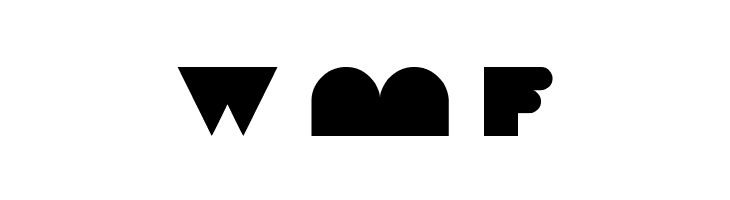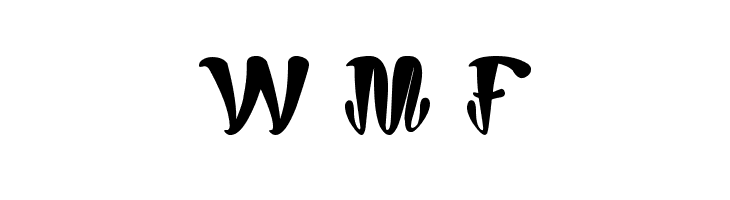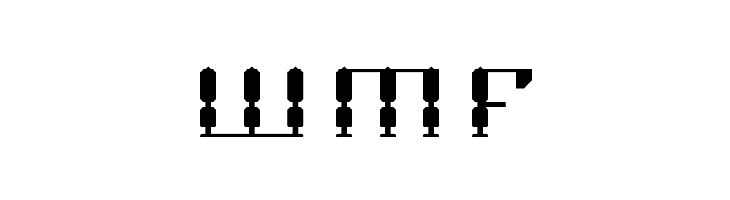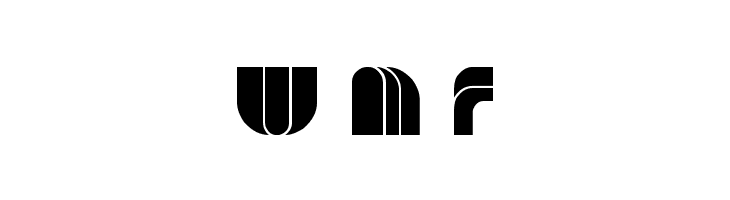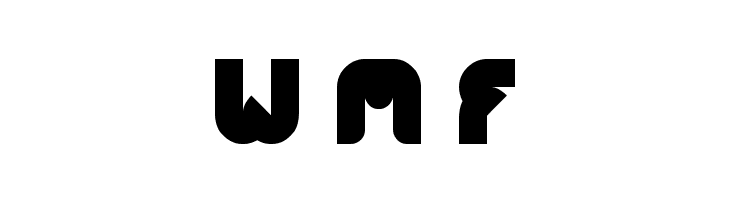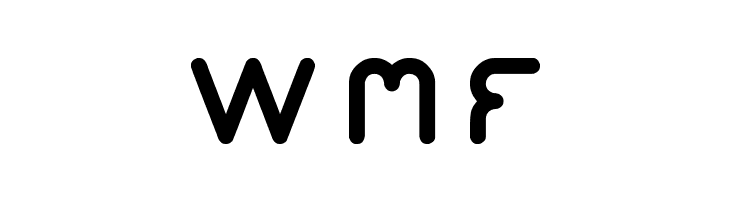
A bold, geometric font with strong circular and triangular elements.
A bold, decorative font with playful curves and a whimsical style.
A playful, bold font with rounded, thick strokes and a whimsical touch.
A pixelated, geometric font with a digital, arcade-inspired style.
A bold, playful font with decorative curls and loops.
A bold, geometric font with a futuristic and modern aesthetic.
A decorative, vine-like font with an organic, intertwined design.
A bold, geometric font with playful, modern design elements.
A bold, geometric font with thick strokes and a strong presence.
A modern, geometric font with rounded edges and a bold, uniform appearance.